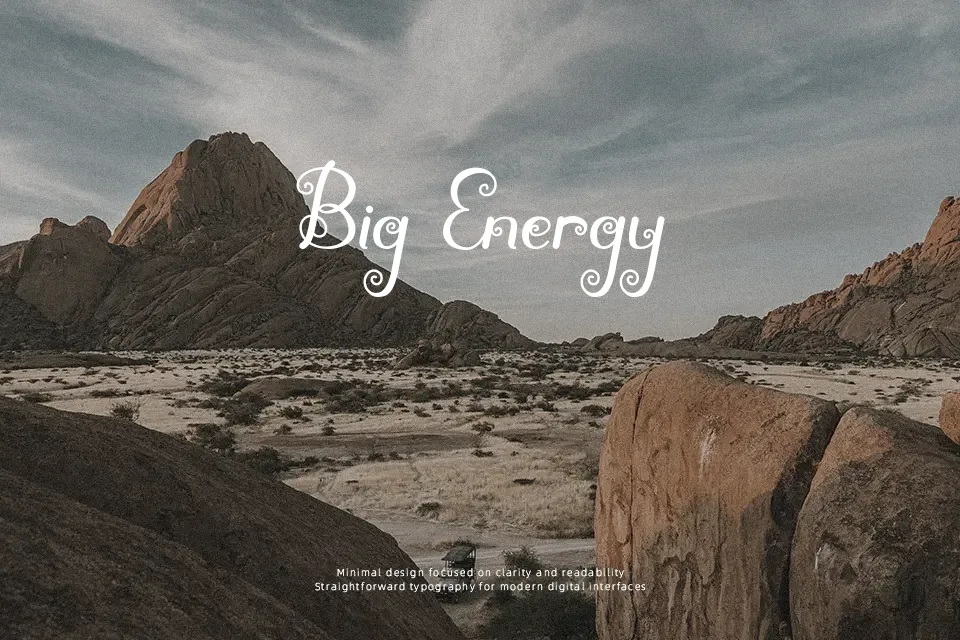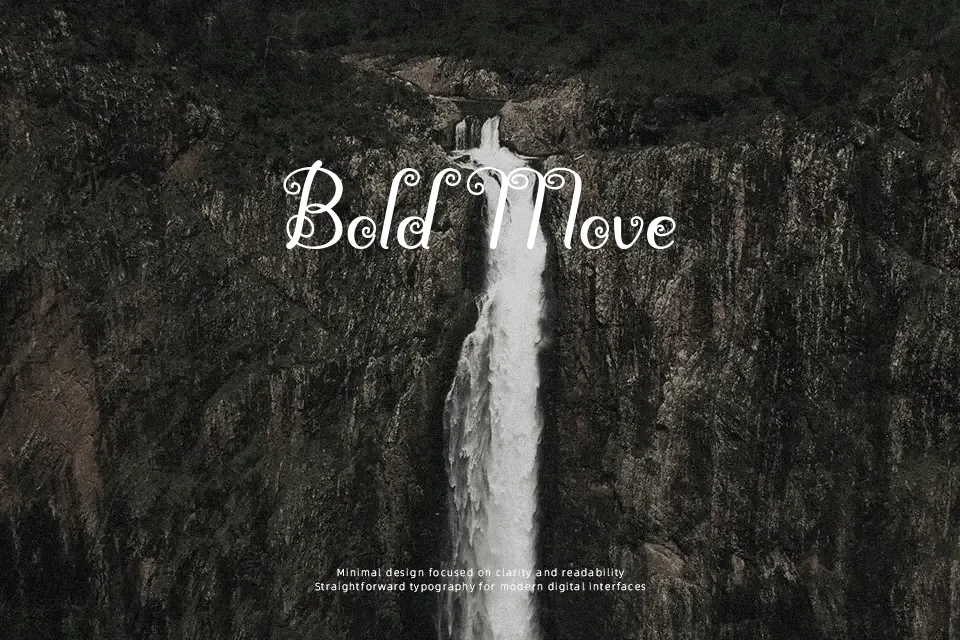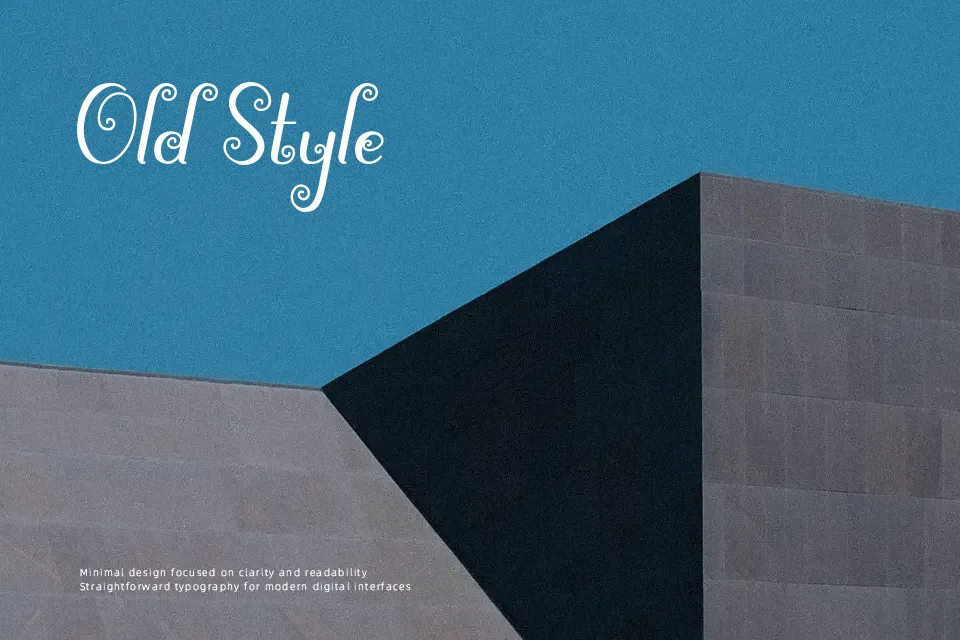
Spirly Font
Spirly Font stands out with its expressive curly flourishes, coiled stroke terminals, and upbeat rhythmic structure across every glyph. The letterforms maintain uniform stroke thickness and balanced spacing, giving each character adequate room to display its circular swashes without overlapping adjacent letters. In practical design work, the typeface excels across children’s book titles, festive event branding, and decorative gift packaging where visual personality takes center stage. However, the intricate spiral details become cluttered at smaller point sizes, making the design unsuitable for continuous body copy or multi-line editorial paragraphs. Generous letter spacing helps preserve legibility in short, punchy headlines.
Best For: greeting card headlines, children’s book titles, festive event branding, decorative gift packaging
Not Ideal For: continuous body text, mobile UI labels, technical documentation, dense editorial layouts
Perfect for branding, headline, and invitation, with a creative and decorative style.